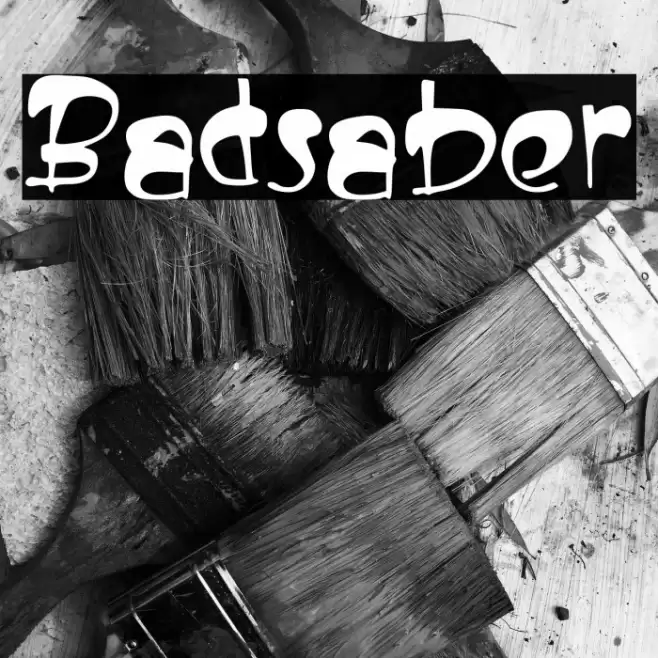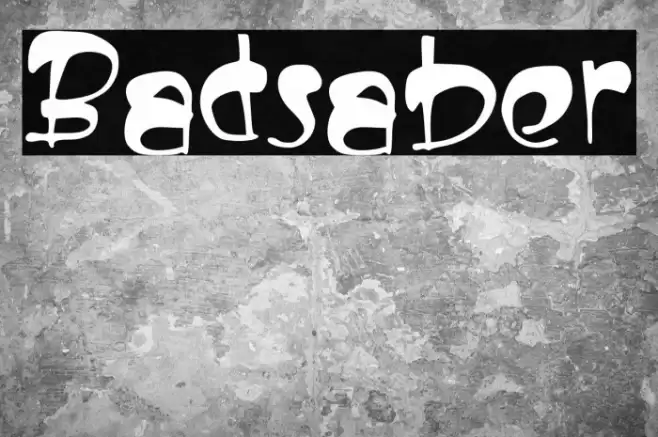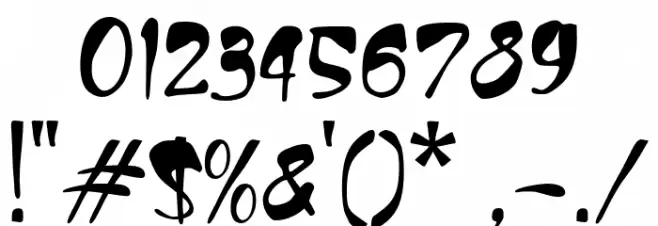
Badsaber Font
Badsaber Description
This font features a dynamic and expressive style, characterized by its bold and irregular strokes. The letters have a playful and artistic flair, with varying thicknesses and a hand-drawn appearance. The uppercase letters are tall and slightly narrow, while the lowercase letters maintain a consistent height with a whimsical touch. Numbers and special characters follow the same energetic style, making the font suitable for creative and informal designs. The overall look is unique and eye-catching, perfect for projects that require a personal and artistic touch.
A bold, artistic font with dynamic, hand-drawn strokes from Uncategorized fonts.
- Proposed Projects: Ideal for posters, album covers, artistic branding, and creative digital content.
- Overall Style: Artistic, Playful